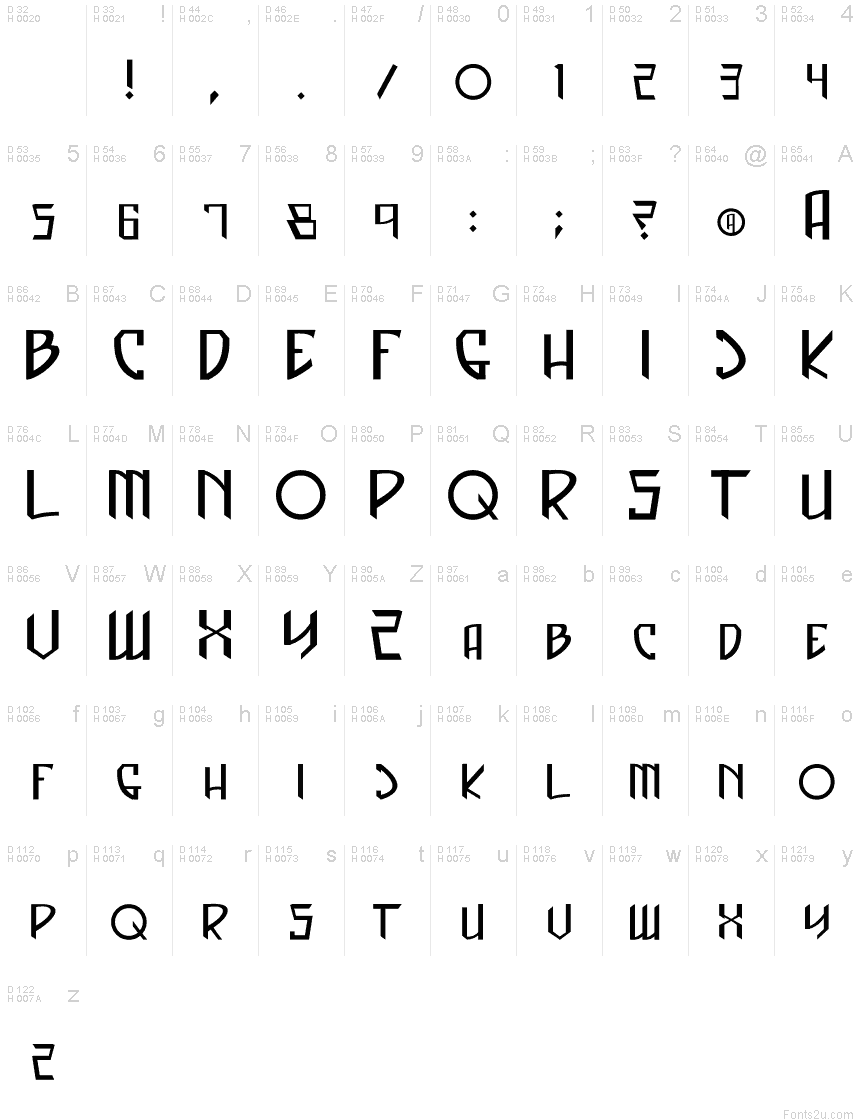
Captain Spandex
Captain Spandex font stretches tall, angular letters into a lively comic-book voice, with sharp bends and slightly uneven strokes that feel energetic rather than rigid. This free font carries a bold, heroic attitude that works well whenever you need lettering that looks loud and dramatic without becoming messy.
Use Captain Spandex for superhero posters, comic covers, game logos, retro event flyers, YouTube thumbnails, or bold merchandise prints where you want instant impact. This free font shines at larger sizes, and it pairs nicely with a simple geometric sans serif for body copy to keep layouts clear and readable.
Captain Spandex is a free decorative display typeface.